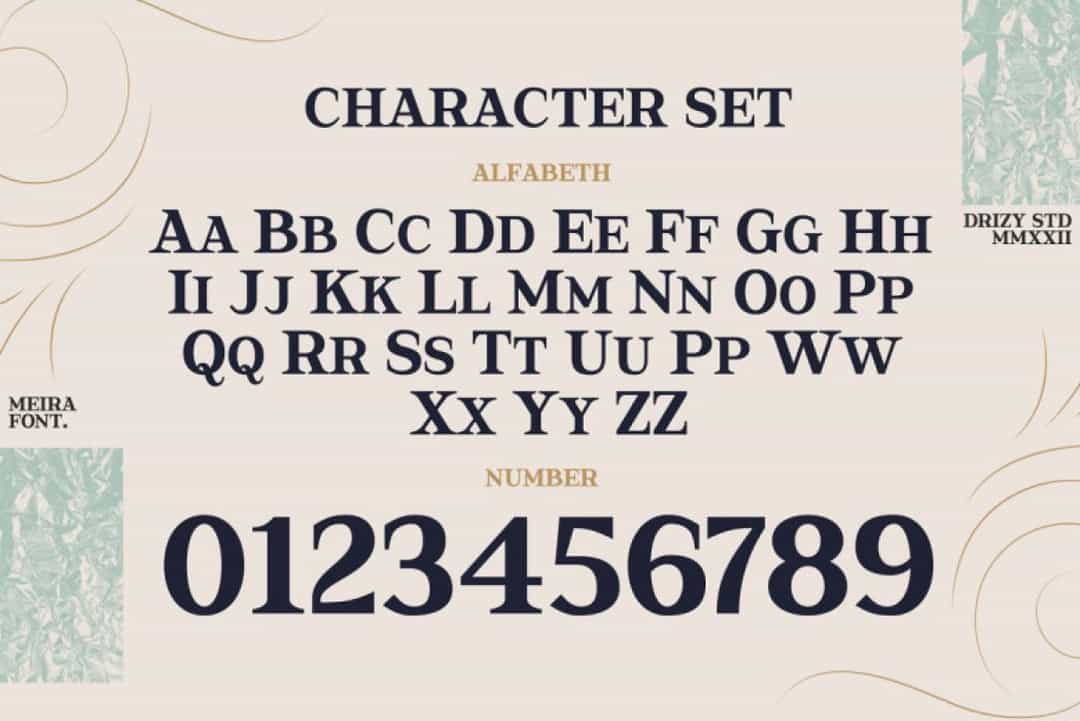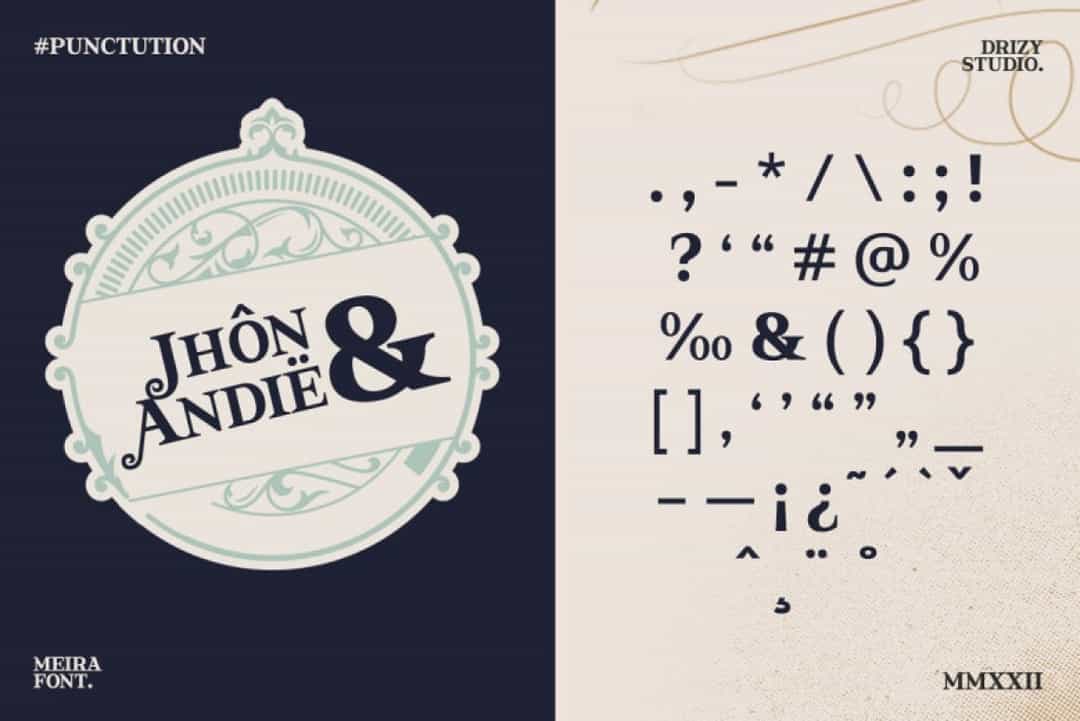
Discover Meira Font, part of the Serif Display collection—a versatile and unique font perfect for adding a personal touch to your projects. Download it for free and enjoy crafting designs with style, from invitations to social media posts. This font is available exclusively for personal use, giving you the freedom to create without limits. Unlock your creativity with Meira Font today!
Drizy is thrilled to introduce Meira!, their inaugural vintage serif display font! Featuring all caps, numbers and numerals plus multilingual punctuation ligature and punctuation. Meira makes for beautiful logos and names while fitting seamlessly with various font styles and any design project you may be working on.